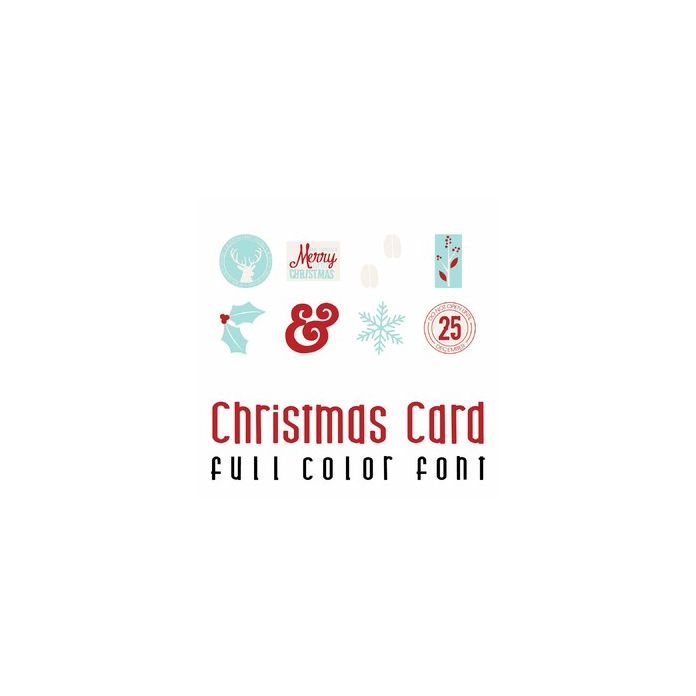
This adorable full color doodlebat font features 36 beautiful Christmas images perfect for card making! Use characters A-Z and 0-9. Perfect for cards, crafts, gifts, decor, scrap book pages, planner stickers and more!